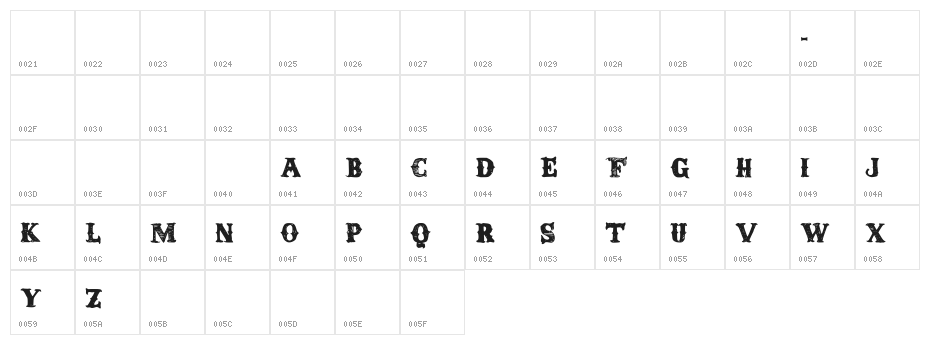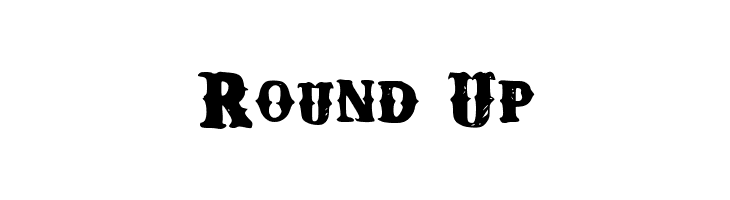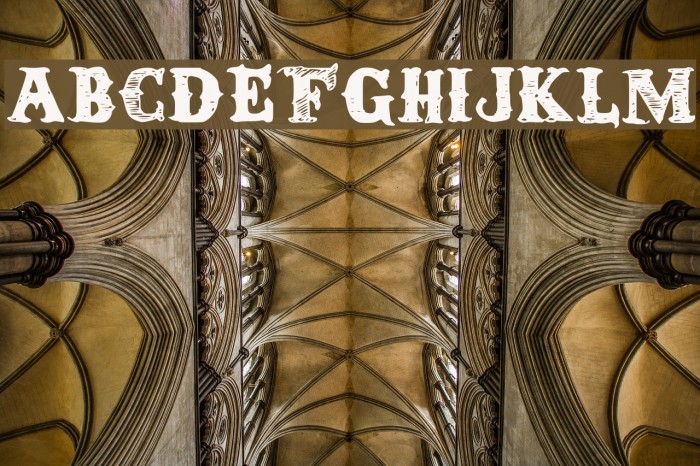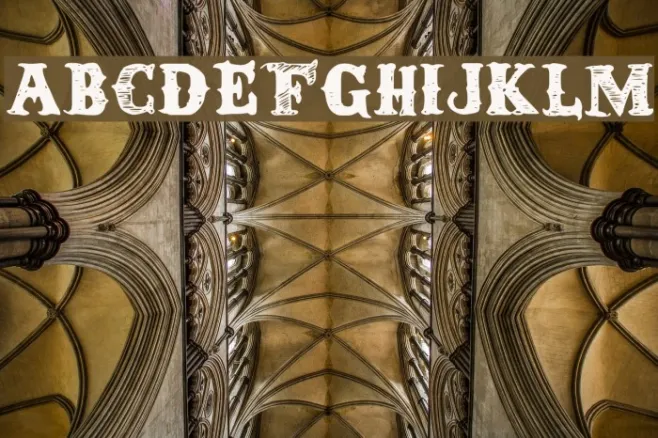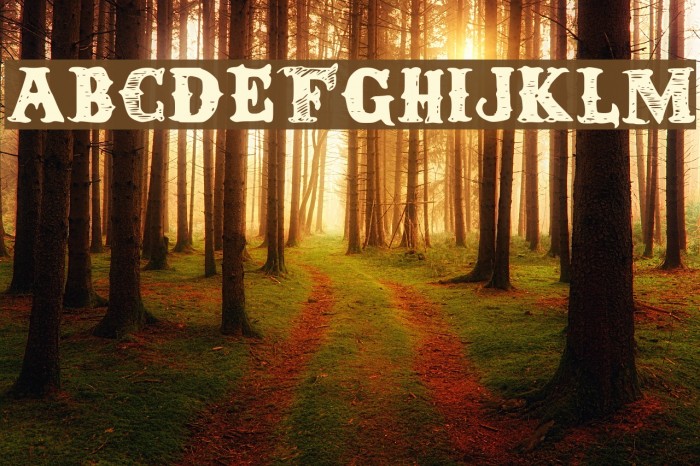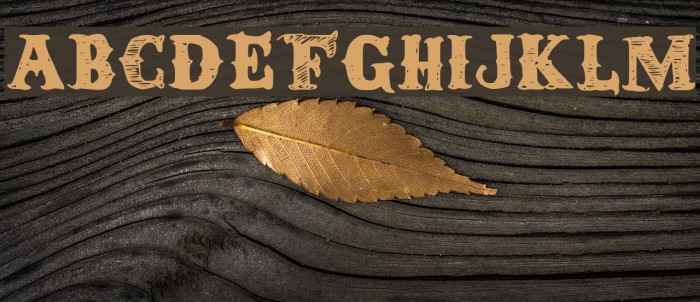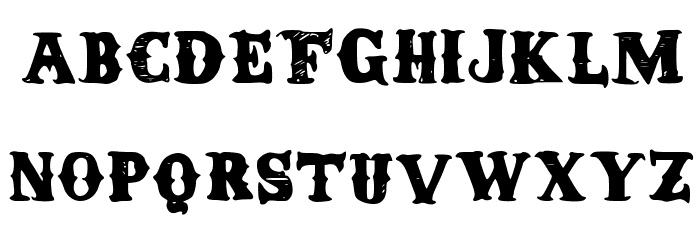
Round Up Font
Round Up Description
This font features a bold, decorative style with a distinctly western, vintage aesthetic. The uppercase letters are characterized by thick strokes and intricate, ornamental details that evoke a sense of ruggedness and nostalgia. The design incorporates elements reminiscent of old western signage, making it ideal for projects that require a touch of historical flair. The font's unique texture and embellishments add depth and personality, making it stand out in any design context.